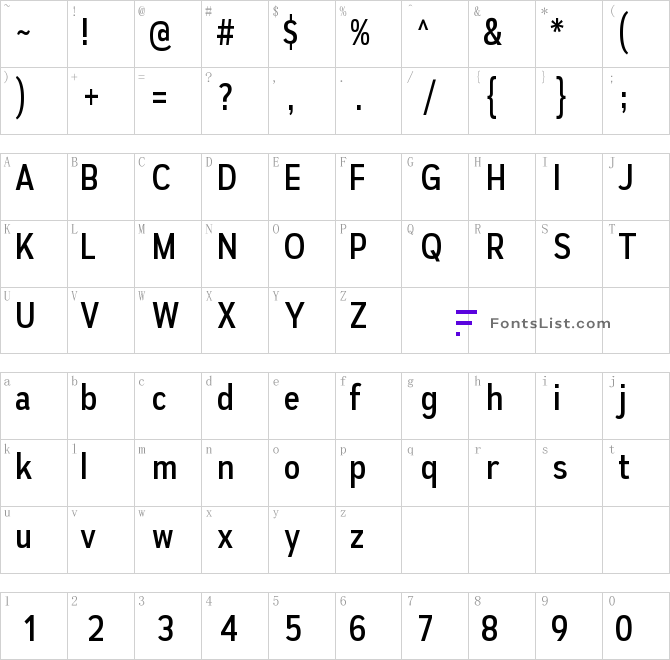
- Font Name:Autoradiographic Rg
AutoradiographicRg-Regular.ttf is a very beautiful artistic font, AutoradiographicRg-Regular.ttf is widely used in the design and printing of various books and pictures,AutoradiographicRg-Regular.ttf has a strong visual impact,AutoradiographicRg-Regular.ttf is a commonly used font in newspapers, magazines and books, and is used in posters, e-commerce Poster design, store design, logo design, font design and other fields.AutoradiographicRg-Regular.